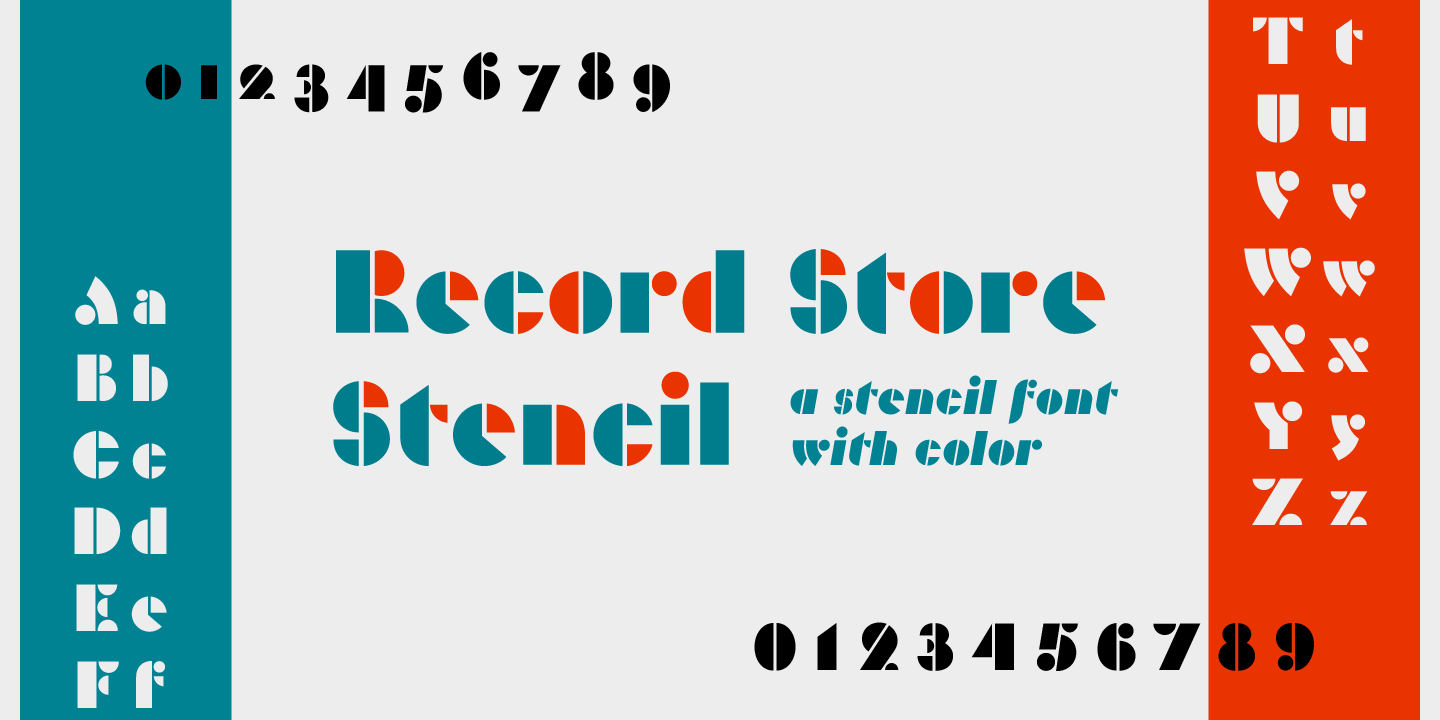
Record Store Stencil Font Free Download is a retro-inspired typeface that combines vintage flair with a bold, industrial stencil style. Perfect for music-themed designs, posters, album covers, signage, and branding, this font brings back the nostalgic vibe of old-school record shops and underground culture. Its stenciled letterforms are clean, sharp, and packed with character, making it ideal for both modern and retro applications.
The Record Store Stencil Font Free Download gives your projects a gritty, analog feel while maintaining excellent readability and visual appeal. Whether you're working on a band logo, event flyer, or apparel design, this typeface adds an edgy authenticity that connects with music lovers and design enthusiasts alike. Its strong presence and unique cutout style ensure it grabs attention and communicates attitude.
Bring your designs to life with the unmistakable vibe of Record Store Stencil Font Free Download. It’s the perfect blend of retro soul and stencil strength—ideal for projects that need a little noise and a lot of style.